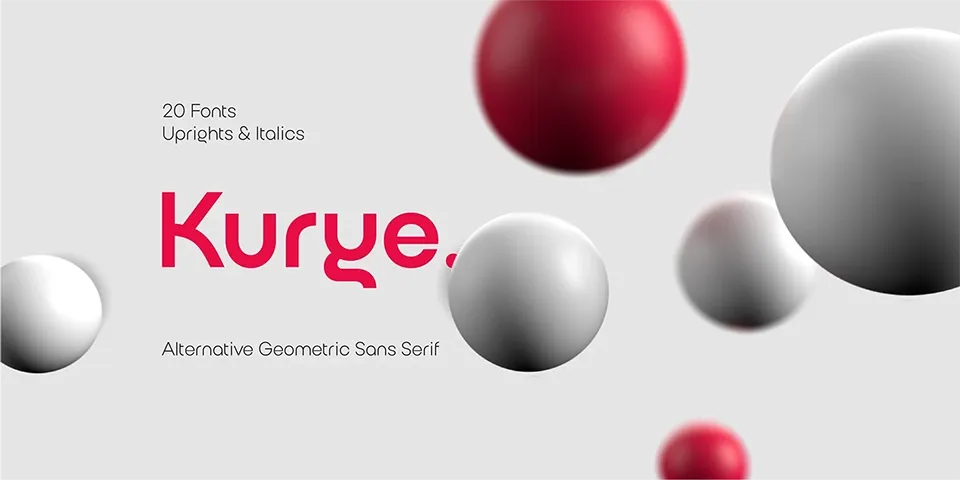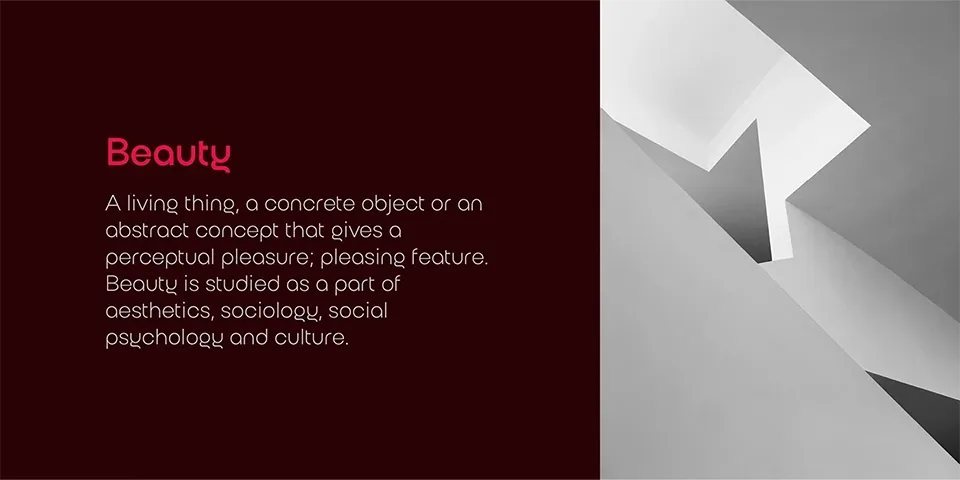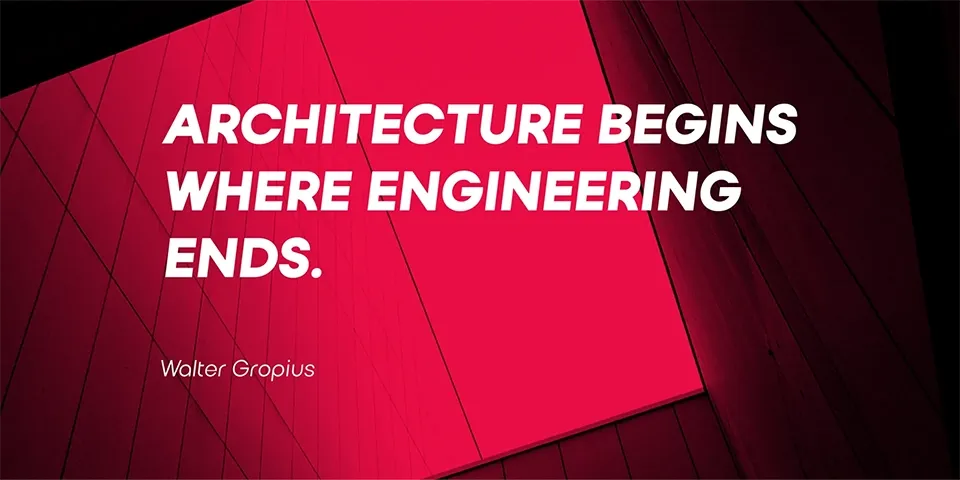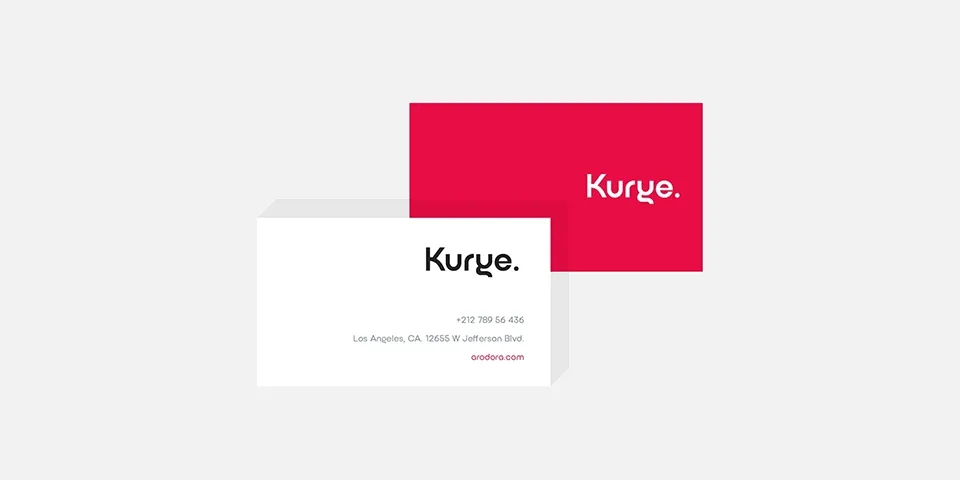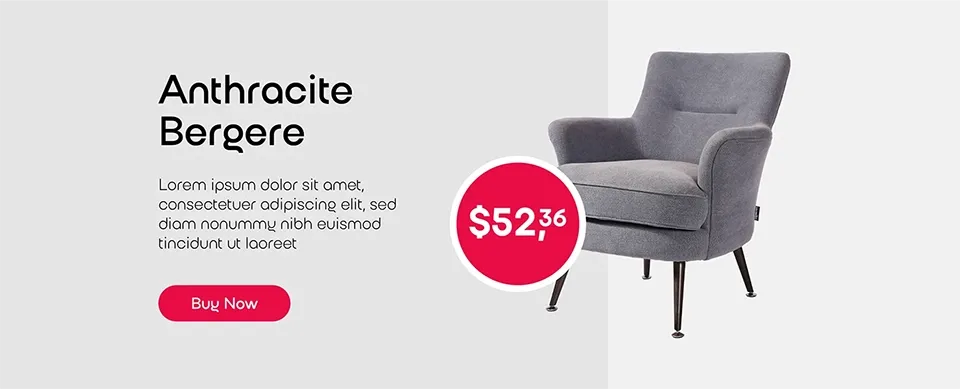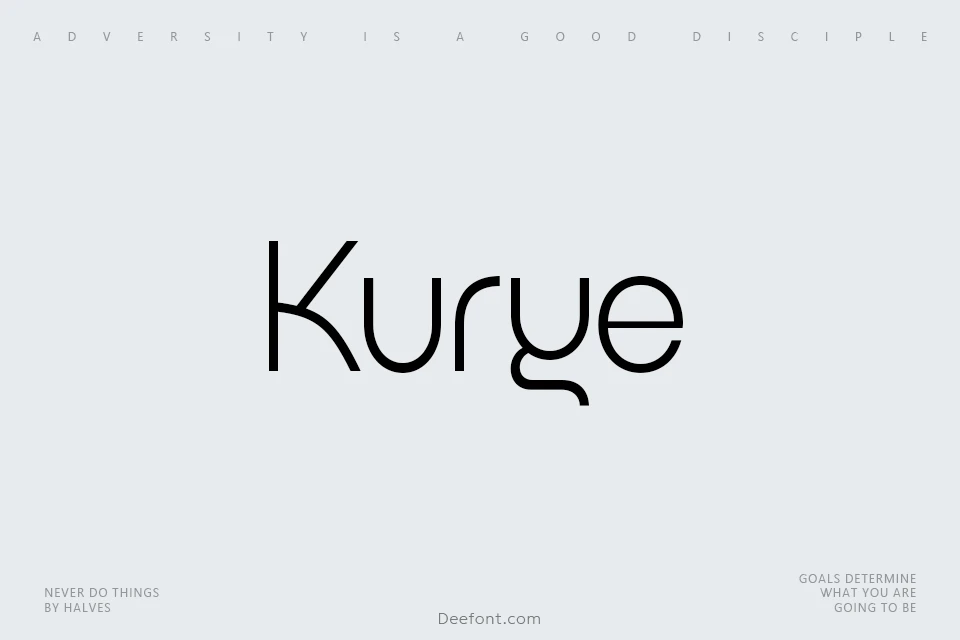
Kurye Font
Kurye Font is a modern, alternative geometric sans serif typeface designed by Serdar Öztürk. Featuring 20 fonts with uprights and italics, Kurye stands out for its elegant and emotional character, making it ideal for editorial, brochure, catalog, branding, and logo designs. The family includes ligatures, alternative glyphs, and multilingual support, allowing you to create a distinctive and aesthetically pleasing atmosphere in your projects. Its geometric structure ensures clarity and versatility for both print and digital applications.